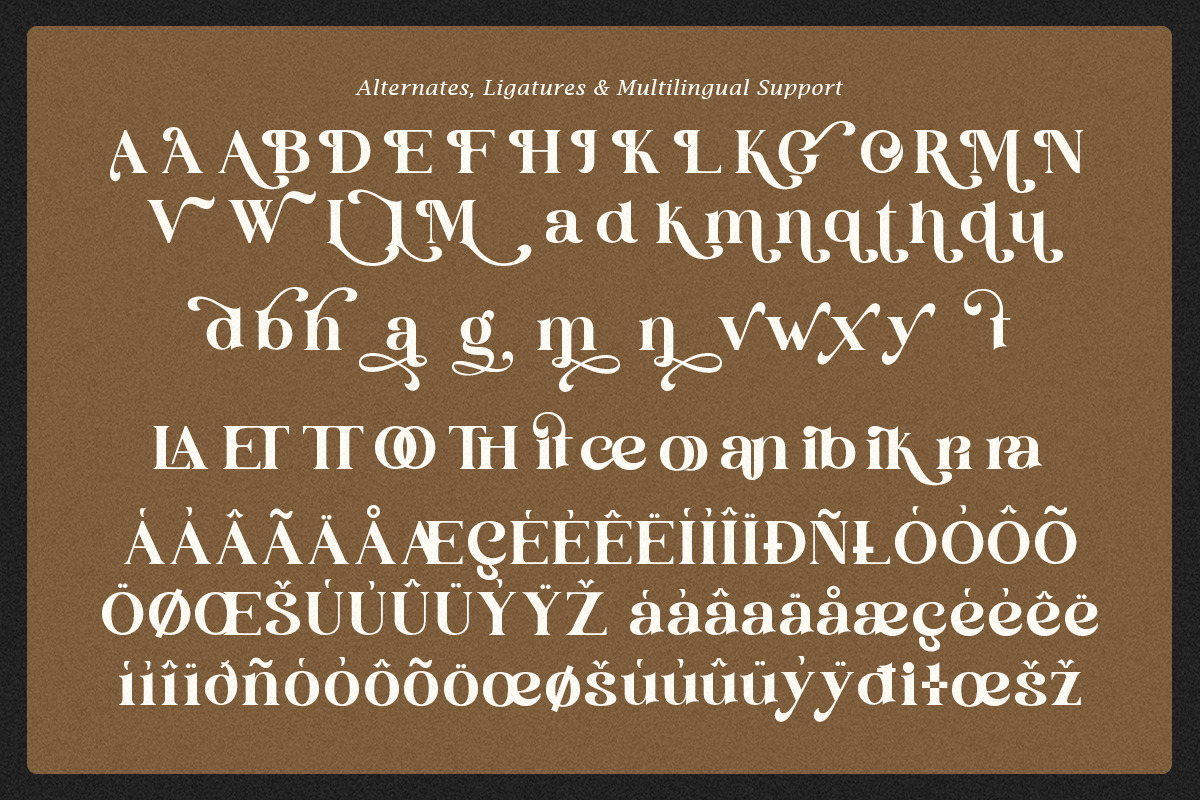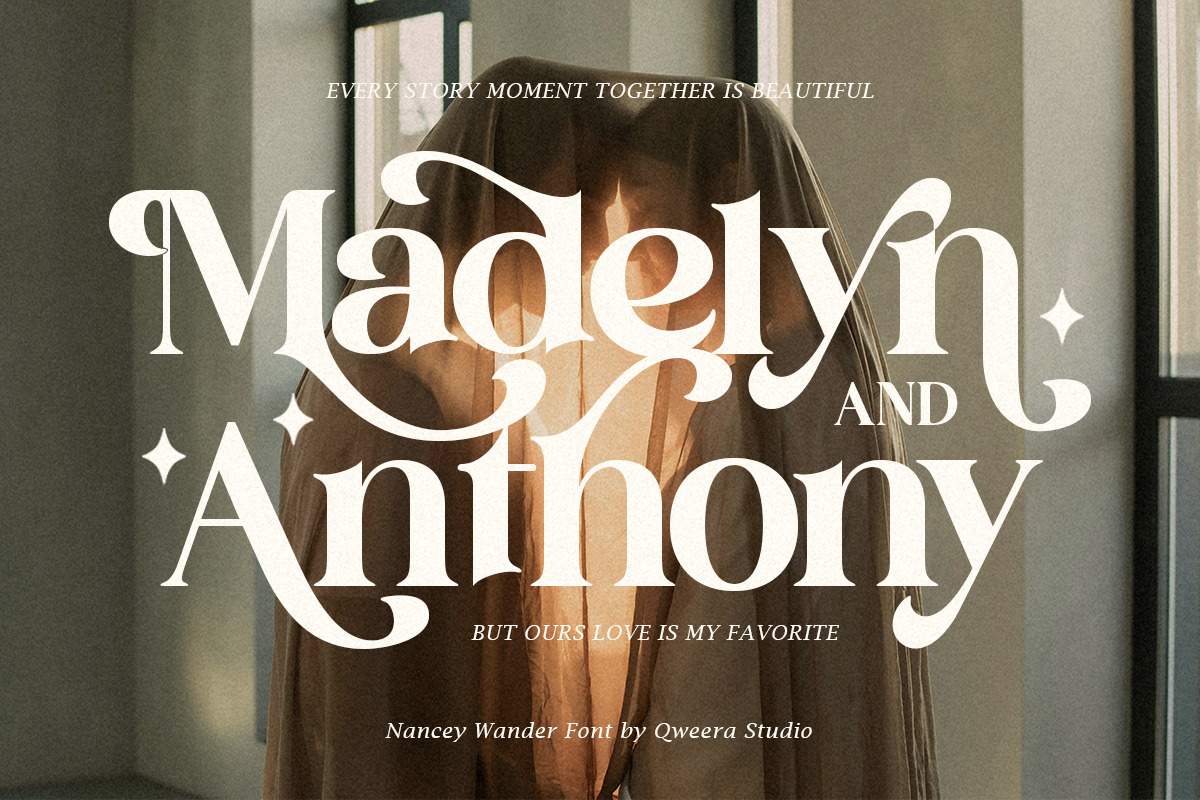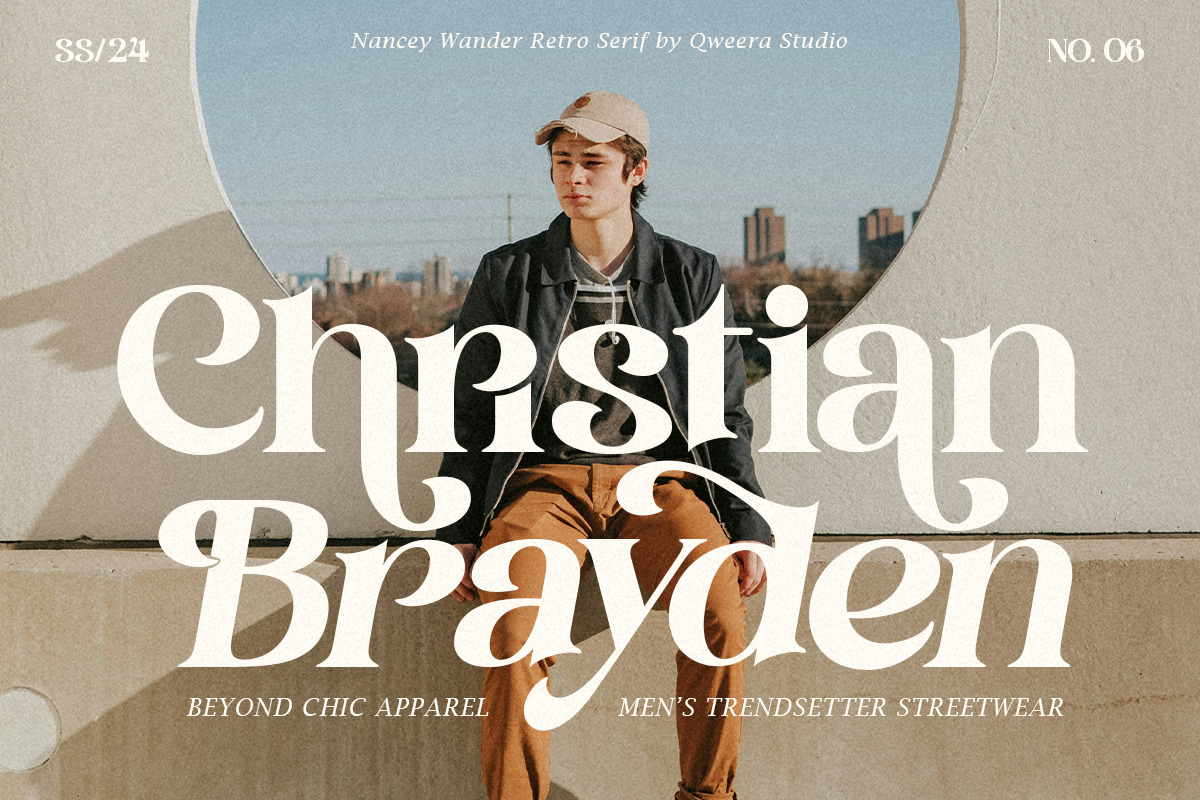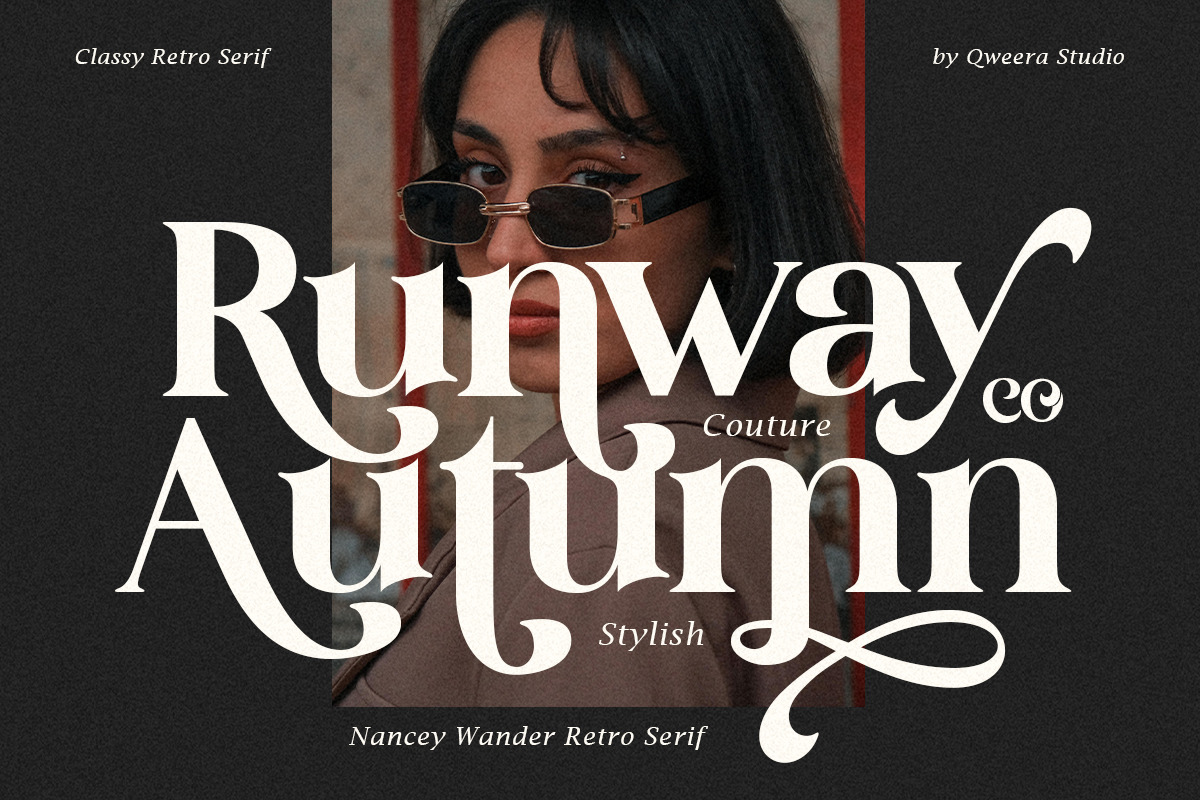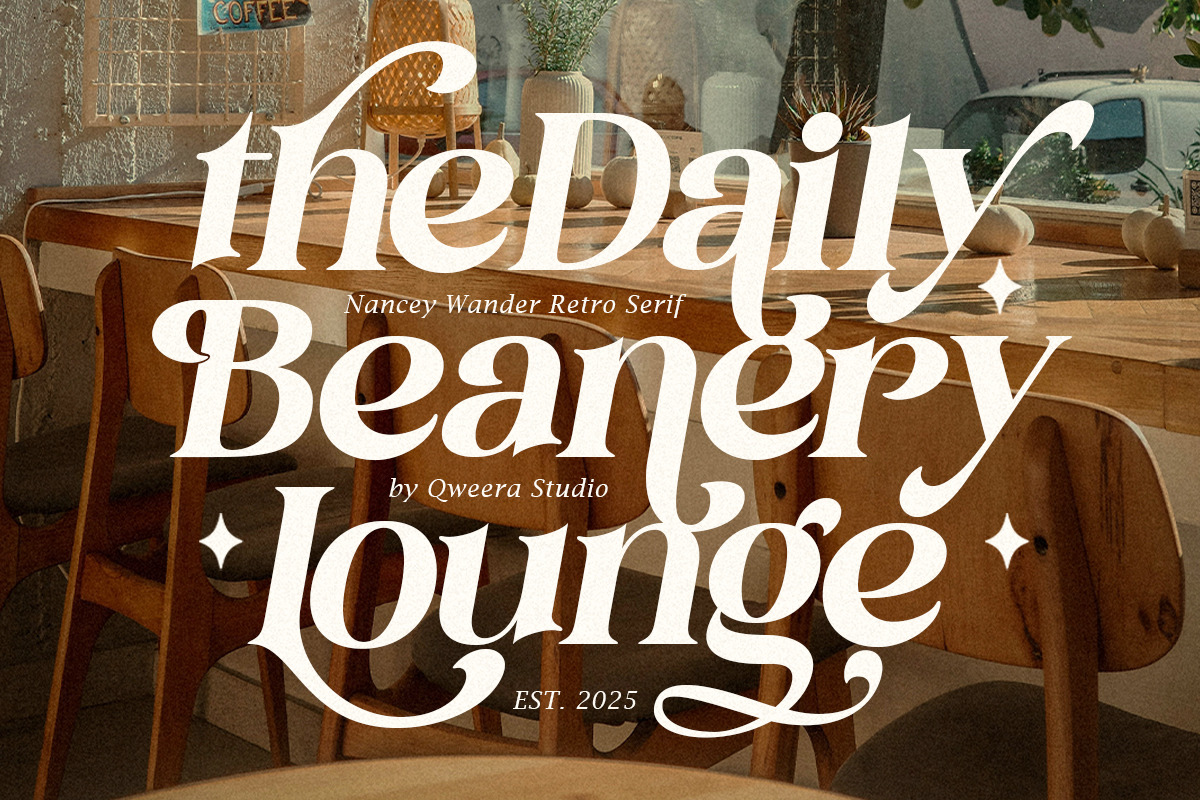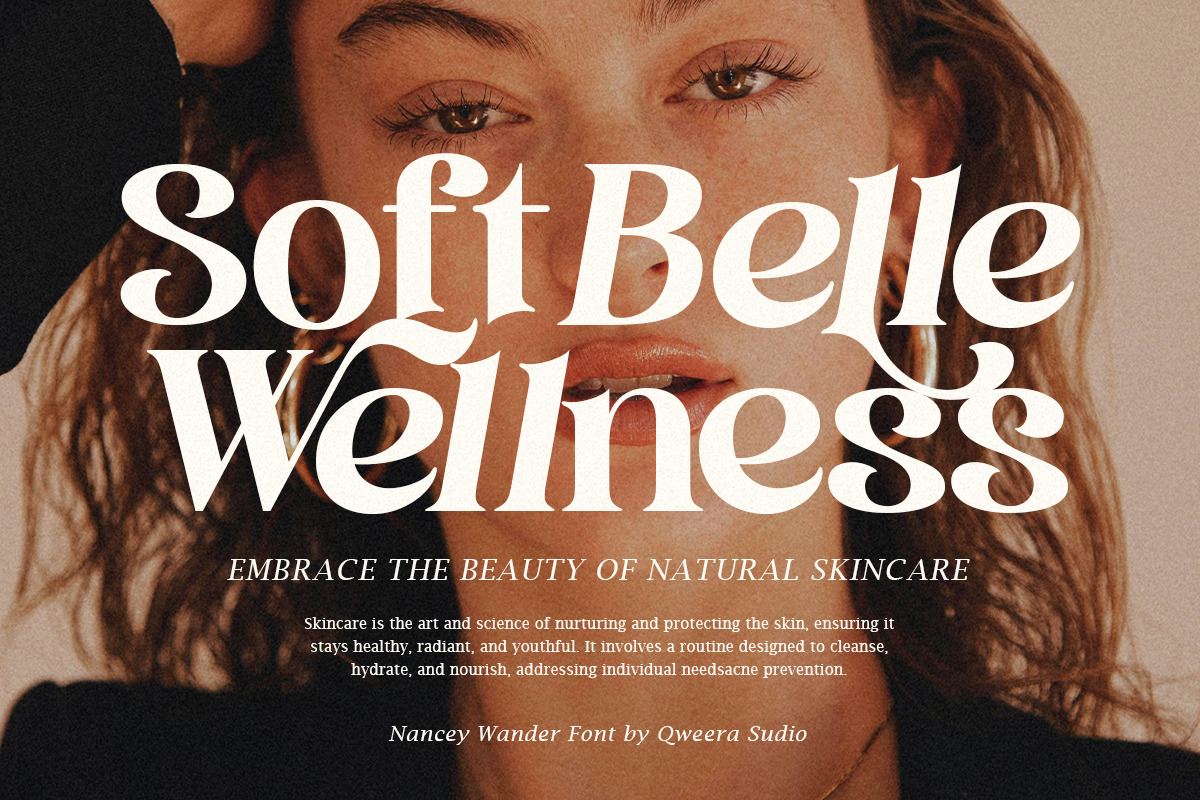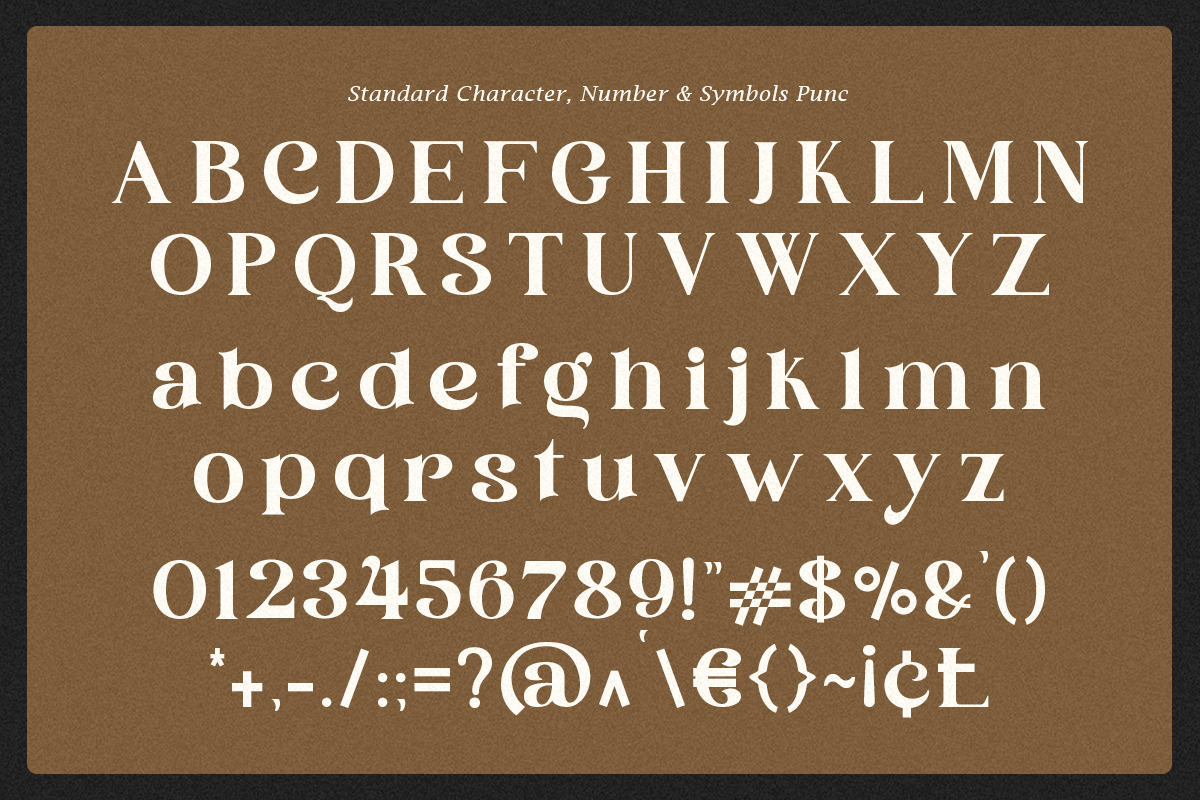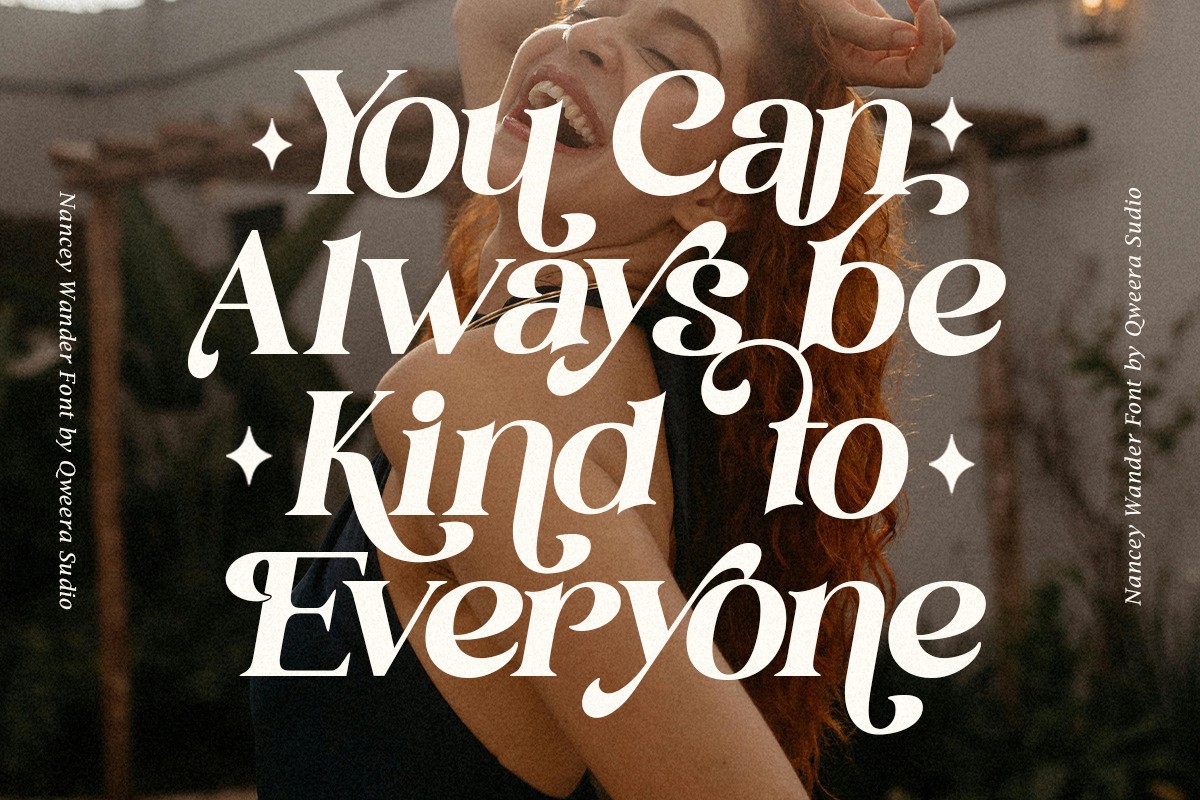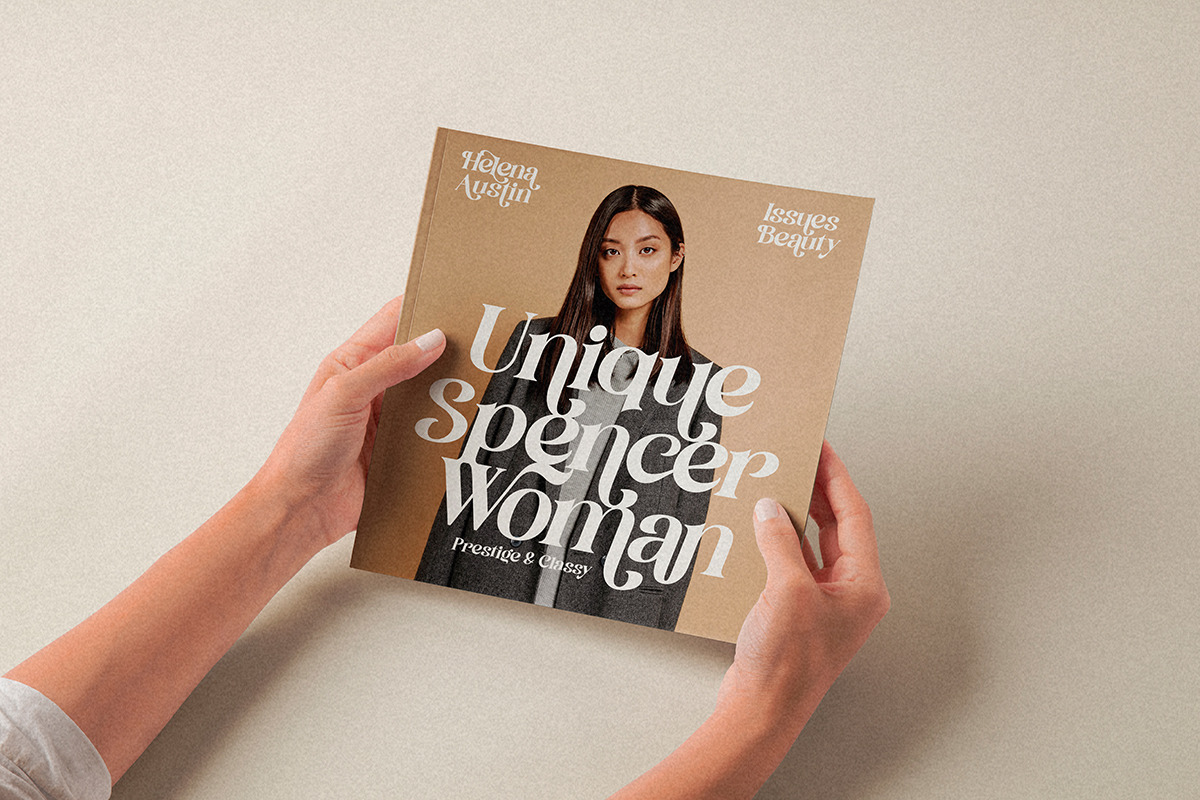
Nancey Wander - Classy Retro
Nancey Wander is a classy serif typeface that combines unique bold and thin character transitions, available in both regular and italic styles. This font features stylish alternates and ligatures, offering ultimate flexibility to create designs tailored to your vision effortlessly.
Perfect for posters, magazines, and print designs, Nancey Wander brings a touch of elegance and sophistication to any project. Its timeless appeal and versatile style make it an excellent choice for creating visually stunning layouts with ease.
Elevate your designs with Nancey Wander – where creativity meets elegance in every detail!
- Regular & Italic
- Opentype features ( ligature, alternate )